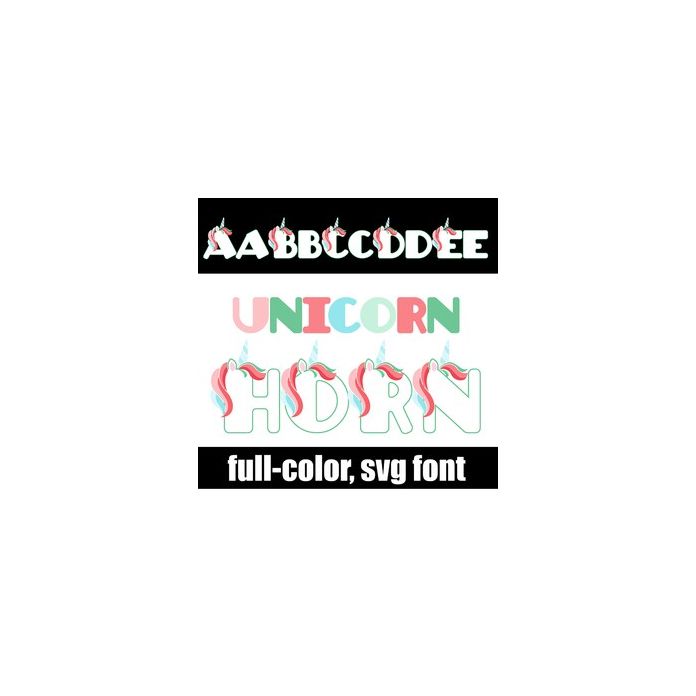
This full-color font features Christmas themed unicorns. There is an alt case w/ additional colors you can access through your system or Silhouette's glyph map.